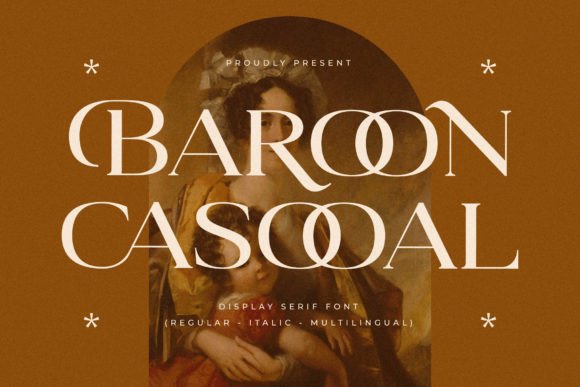
Introducing Baroon Casooal Font: Elevate Your Designs with Elegance and Boldness
Are you on the hunt for a font that exudes elegance, sophistication, and versatility? Look no further than Baroon Casooal, a stunning serif font that’s about to take your designs to the next level. With its unique blend of classic and modern elements, Baroon Casooal is the perfect choice for designers and crafters seeking to create breathtaking wedding invitations, beautiful stationery art, eye-catching social media posts, and more.
The Characteristics of Baroon Casooal Font
Baroon Casooal is an elegant and bold serif font that boasts an incredibly versatile style. Its distinctive features include:
- Classic Serif Elements: Baroon Casooal’s serif design pays homage to traditional typography, lending an air of sophistication and refinement to your designs.
- Bold and Elegant: The font’s bold weight and elegant lines make it perfect for creating eye-catching headlines, titles, and statements.
- Versatile: Whether you’re designing wedding invitations, social media posts, or stationery art, Baroon Casooal adapts seamlessly to any style or theme.
Creative Use Cases for Baroon Casooal Font
With Baroon Casooal, the design possibilities are endless. Here are some creative ways to utilize this stunning font:
- Wedding Invitations: Create gorgeous wedding invitations that set the tone for an unforgettable celebration. Baroon Casooal’s elegant and bold style makes it perfect for formal or semi-formal wedding designs.
- Stationery Art: Add a touch of sophistication to your stationery art with Baroon Casooal. Use it for business cards, letterheads, or greeting cards to make a lasting impression.
- Social Media Posts: Elevate your social media game with eye-catching posts that showcase Baroon Casooal’s bold and elegant style. Perfect for promoting events, products, or services.
- Branding and Packaging: Use Baroon Casooal to create stunning brand identities, product labels, or packaging designs that exude luxury and sophistication.
Why Choose Baroon Casooal Font?
So, what sets Baroon Casooal apart from other fonts? Here are some compelling reasons to choose Baroon Casooal for your next design project:
- Unique Style: Baroon Casooal’s distinctive blend of classic and modern elements makes it a standout font that’s sure to grab attention.
- Highly Versatile: The font’s adaptability makes it suitable for a wide range of design applications, from wedding invitations to social media posts.
- Elegant and Bold: Baroon Casooal’s elegant and bold style makes it perfect for creating designs that exude sophistication and luxury.
Tips for Using Baroon Casooal Font Effectively
To get the most out of Baroon Casooal, here are some expert tips for using the font effectively:
- Pair with Complementary Fonts: Combine Baroon Casooal with complementary fonts to create visually appealing contrast and hierarchy.
- Experiment with Colors: Try pairing Baroon Casooal with different colors to create unique and eye-catching designs.
- Play with Sizes: Experiment with different font sizes to create visual interest and emphasize key elements.
In conclusion, Baroon Casooal is an exceptional serif font that offers a unique blend of elegance, boldness, and versatility. With its wide range of design applications and expert tips for effective use, Baroon Casooal is the perfect choice for designers and crafters seeking to elevate their designs. Whether you’re creating wedding invitations, stationery art, social media posts, or more, Baroon Casooal is sure to make a lasting impression.